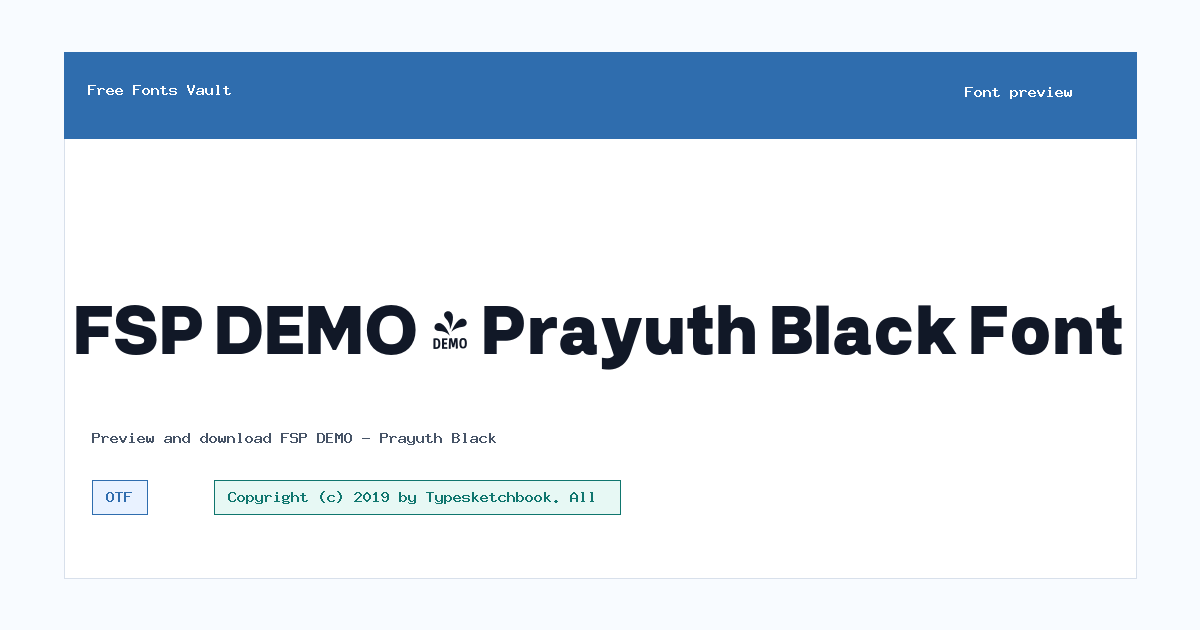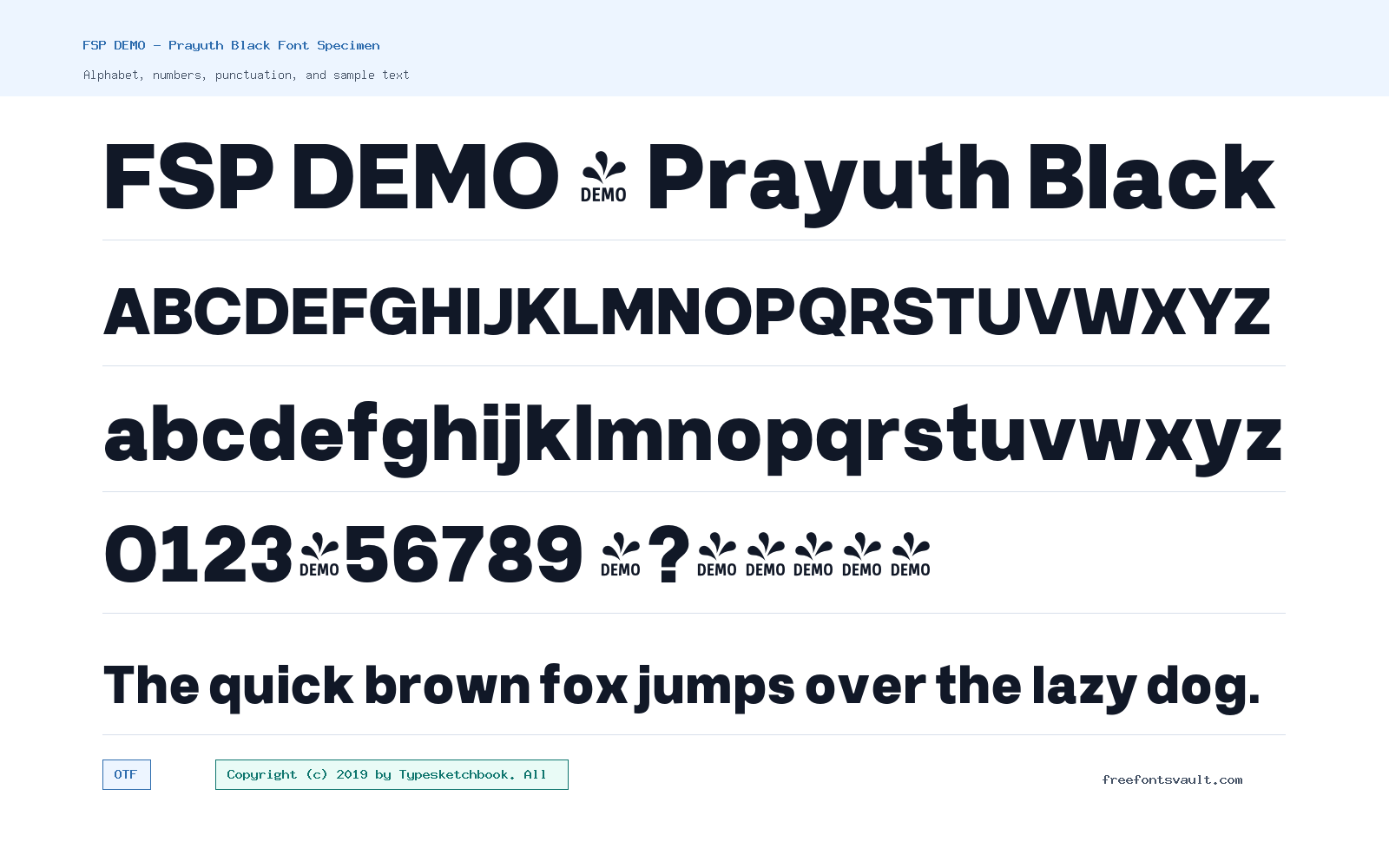
FSP DEMO - Prayuth Black
FSP DEMO – Prayuth Black font.
FSP DEMO – Prayuth Black is a very heavy 900-weight OTF display font by Typesketchbook, meant for short words that need strong visual impact.
About FSP DEMO – Prayuth Black
Prayuth Black is the kind of font to test when a regular bold face still feels too quiet. The black weight gives words a large, solid presence, which can work well for posters, banners, title cards, social graphics, and short brand-direction mockups. It is not a subtle reading face, so the strongest results usually come from a few words set large with enough breathing room around them.
The listed file is `prayuth-black.otf`, with normal style settings and a 900 weight value. That makes it a focused display option rather than a broad family with multiple weights. Use the preview to test the real headline, then check tight letter pairs, uppercase words, punctuation, and numbers. Heavy fonts can fill counters and make spacing feel cramped if the size is too small or the background is too busy.
- Black 900 weight for large, high-impact display typography.
- Designed for short text previews, title treatments, and strong visual emphasis.
- Best paired with a lighter body font so supporting copy remains easy to read.
- Large headlines, posters, banners, and title cards.
- Social graphics, thumbnails, and short promotional text mockups.
- Brand exploration where a heavy display voice is needed.
- High-contrast typographic compositions with only a few words.
- Pairing with a neutral sans serif or readable text font for secondary information.
Use Prayuth Black large, with generous spacing and strong contrast. Test it on desktop and mobile sizes before final artwork, because a 900-weight face can lose detail when it is reduced. If your design has paragraphs, captions, or instructions, set those in a lighter companion font and let Prayuth Black handle only the main attention-grabbing text.
What weight is FSP DEMO – Prayuth Black?
The variant is listed with a 900 weight value, which matches the Black style name.
Is Prayuth Black good for body text?
It is better for short display text. The heavy weight can make long paragraphs hard to read, especially at smaller sizes.
Who made FSP DEMO – Prayuth Black?
Typesketchbook is listed as the designer and foundry.